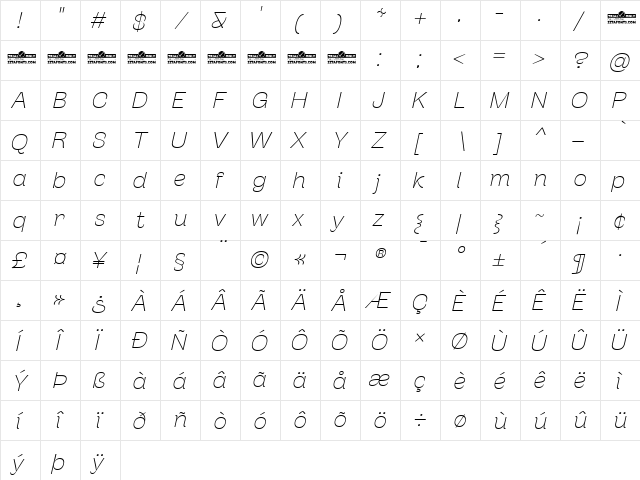
Stinger Fit Trial Thin Italic
Design Context for Stinger Fit Trial Typeface
Stinger Fit Trial offers clean, dependable letterforms without strong stylistic allegiance, making it a practical choice for designers who need flexibility. The slanted form adds forward momentum and visual energy. Its slender proportions lend an understated elegance to any composition.